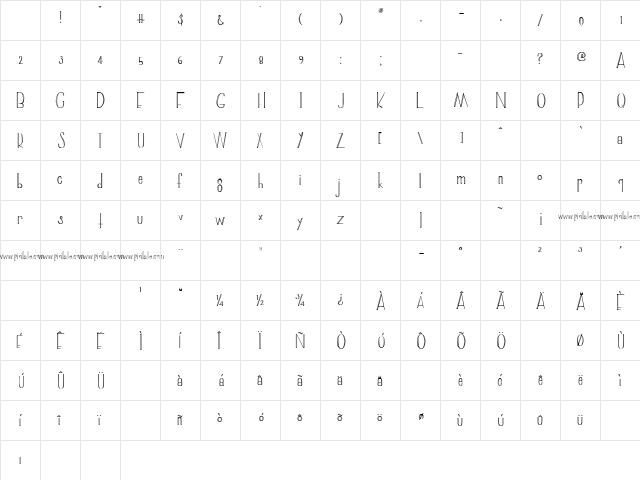
marginal hollow is a composed and adaptable typeface that performs quietly and consistently across a wide range of design contexts.
Pro Tip: Use marginal hollow in both headline and body roles to test its range before committing to a single application.